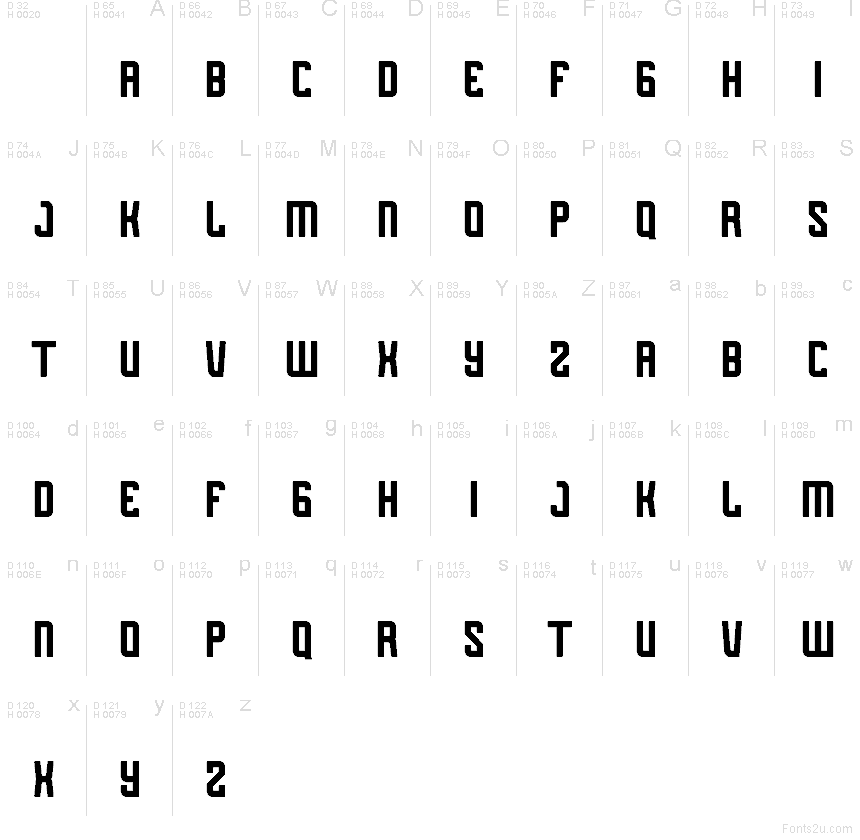
Delgos Black font by Typebae Foundry is a free heavy geometric display sans typeface. Built from chunky, squared forms with tight curves and carved-out counters, it hits like a solid block of ink while still feeling agile and modern. The Delgos family’s Black weight has a dense, almost industrial presence, with straight-edged strokes that stack neatly and create a bold, monolithic rhythm on the page or screen.
Using Delgos Black, your titles don’t just speak-they shout in a clean, controlled way that’s great for logos, posters, esports branding, album covers, social media graphics, and bold packaging. This free font thrives at large sizes where its sharp cuts and thick shapes stay crisp. Pair it with a simple, light grotesque or humanist sans for body text to let Delgos Black carry the visual weight without overwhelming your layout.